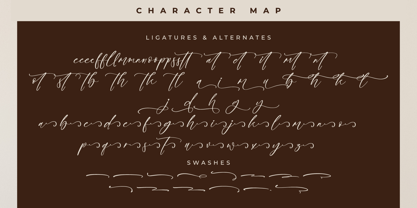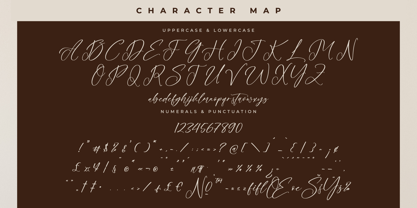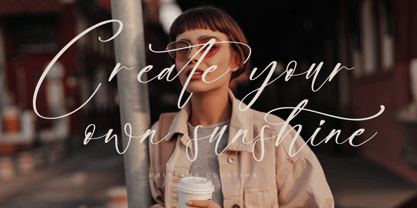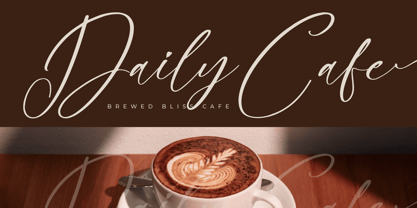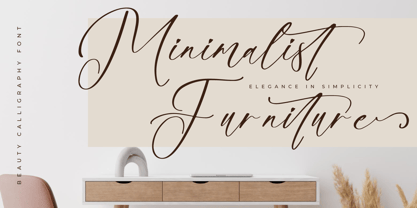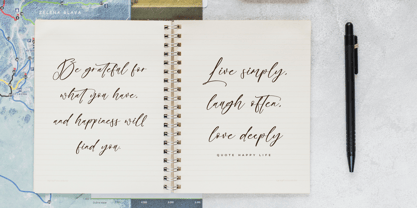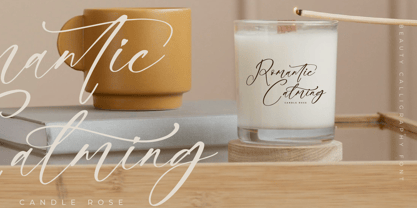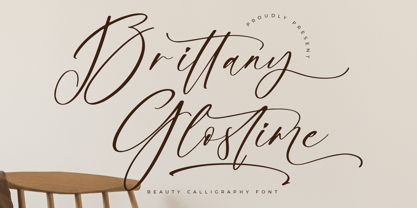
Brittany Glostime
by Letterena Studios
The Brittany Glostime Font Family was designed by Heru Utama Putra and published by Letterena Studios. Brittany Glostime contains 2 styles and family package options. More about this family
Brittany Glostime – Beauty Calligraphy Font , from Letterena, is a Luxury Script font, suitable for any projects such as: logos, branding projects, homeware designs, product packaging, mugs, quotes, posters, shopping bags, t-shirts, book covers, name card, invitation cards, greeting cards, label, photography, watermark, special events, and all your other luxury and beautiful projects that need a Luxury Script taste.